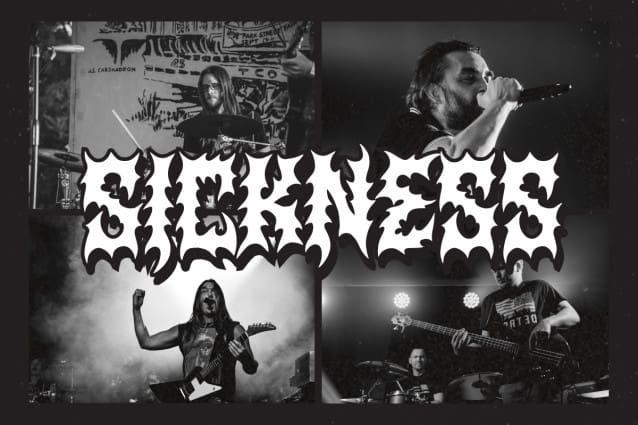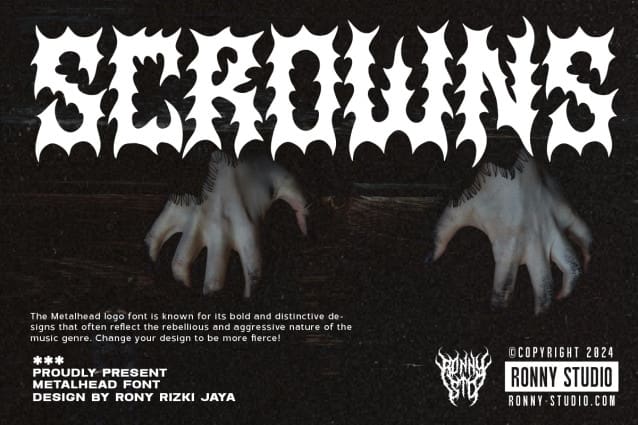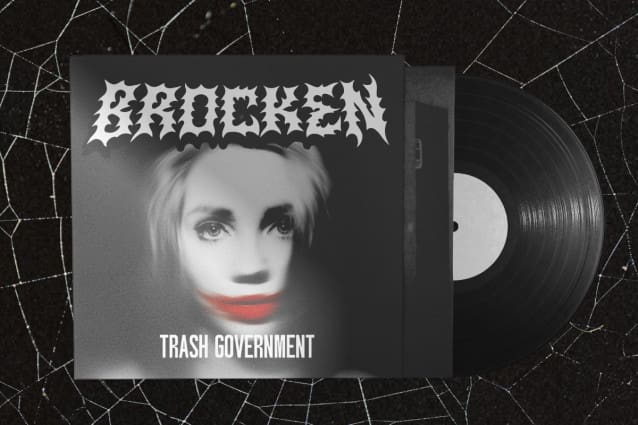
Scrowns Metalhead Font
Scrowns Metalhead Font: Known for its bold and distinctive design, capturing the rebellious and aggressive spirit that is characteristic of the metal music genre. This font is crafted to add a fierce and powerful look to any design, making it ideal for band logos, album covers, posters, and other music-related graphics.